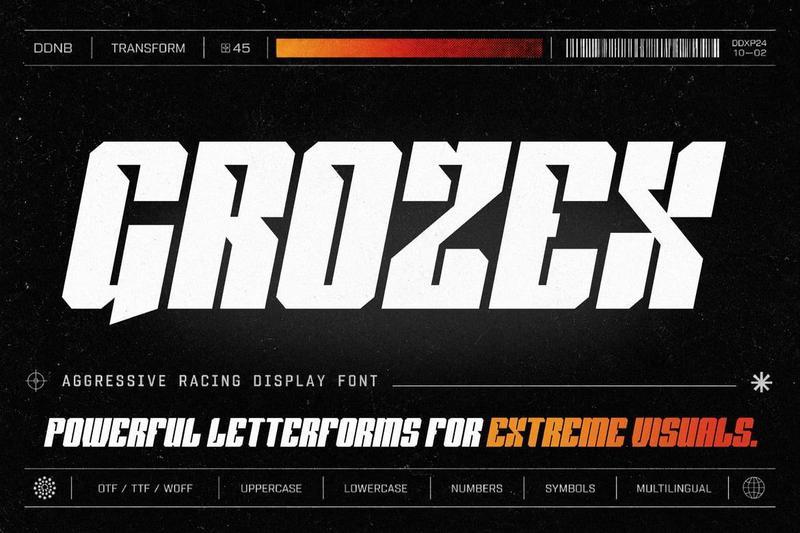
**Grozex** is an aggressive racing font built for designs that need speed, impact, and sharp visual movement. With bold letterforms, dynamic angles, and a fast display structure, this typeface is made for motorsport posters, racing event graphics, game titles, action thumbnails, vehicle-themed visuals, and high-energy promotional layouts.
This font includes uppercase and lowercase characters, numbers, punctuation, symbols, and multilingual support, giving designers a flexible type system for both short headlines and extended display text. Grozex also comes with an italic style, making it easy to create motion-focused compositions, slanted titles, speed-inspired layouts, and dramatic headline treatments.
The strong shape of each character helps your text stay clear even in loud, high-contrast designs. Use it for racing flyers, tournament posters, sports graphics, automotive-inspired artwork, logo concepts, digital banners, packaging titles, sticker designs, and bold editorial layouts. Whether you need a compact headline or a large hero title, Grozex delivers a sharp racing attitude with a readable structure.
**Key Features**
* Uppercase and lowercase characters
* Numbers included
* Punctuation and symbols included
* Multilingual support
* Regular and italic styles
* Aggressive racing display style
* Strong headline readability
* Suitable for print and digital projects
* Great for posters, titles, thumbnails, banners, and racing graphics
**Why Designers Love It**
Designers love Grozex because it helps create a strong visual hierarchy fast. The regular style works well for solid titles and bold headline systems, while the italic version adds movement and speed to the layout. This makes it useful for racing posters, game covers, sports visuals, action promos, and digital content that needs a powerful display font.
The multilingual support also helps designers work across different languages, while the included file formats make the font easy to use in common design applications. Grozex is direct, sharp, and practical for projects where typography needs to carry the energy of the design.